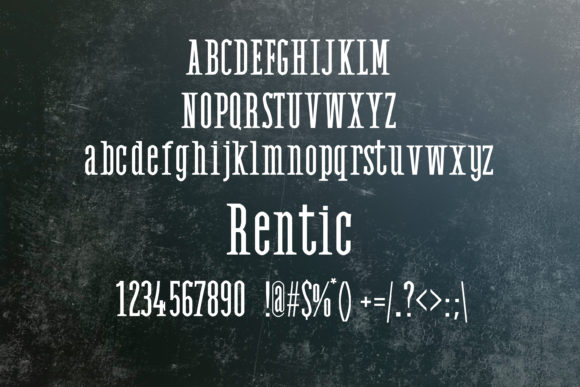
Introduction to Rentic Font
Rentic is a sweet and cool serif font with a powerful vibe.
Get inspired by its unique style .
Key Features of Rentic Font